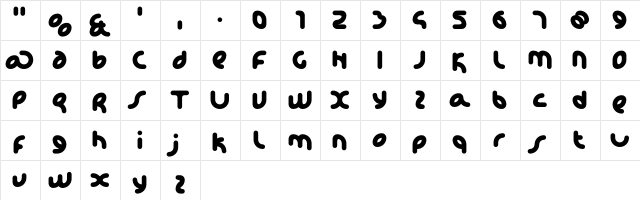
KD Happi Regular
| Foundry | Kassymkulov Design |
| Designer | Kassymkulov Zhalgas |
Design Context for KD Happi Typeface
KD Happi is a composed and adaptable typeface that performs quietly and consistently across a wide range of design contexts.